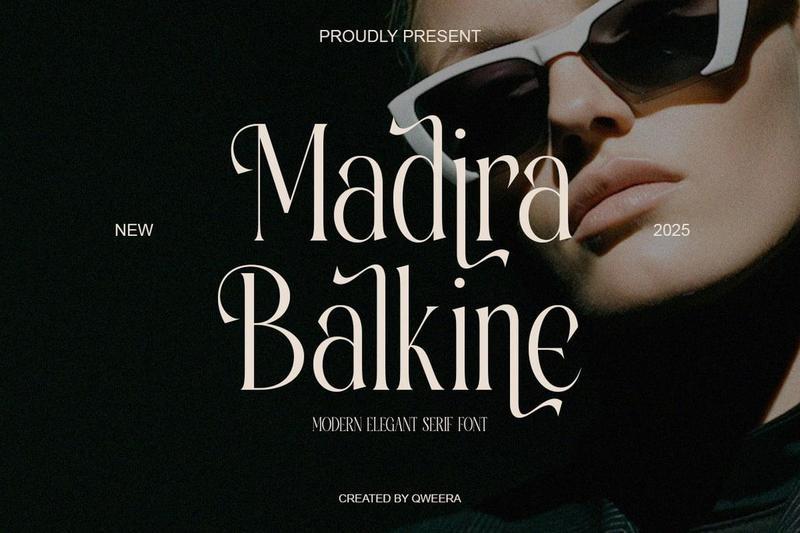
Elegant Modern Serif Branding – Madira Balkin 6WKQSFT
**Madira Balkin** is a modern luxury serif typeface designed to bring elegance, confidence, and premium sophistication into contemporary creative projects. Featuring refined letterforms, stylish alternates, graceful ligatures, and classy proportions, this font creates a polished typographic presence for high-end design work.
Perfect for luxury branding, fashion editorials, beauty packaging, eyewear branding, boutique identities, perfume labels, magazine covers, premium logos, and upscale marketing materials.
Madira Balkin blends modern serif refinement with strong fashion appeal, making it an excellent choice for designers seeking elegant typography with a bold editorial personality.
**Features**
– Uppercase & lowercase
– Alternates & ligatures
– Multilingual support
– Professional kerning
– Regular & Italic
**Perfect For**
Luxury branding, fashion editorials, beauty packaging, eyewear branding, boutique logos, perfume labels, magazine covers